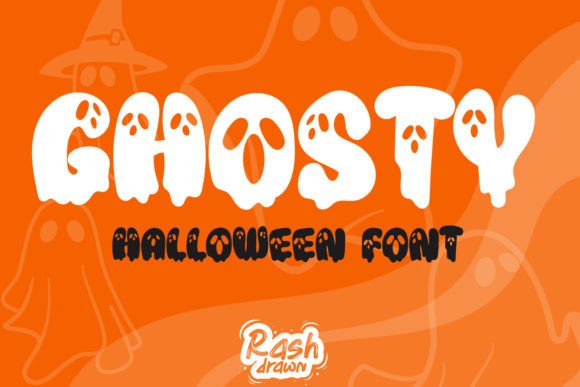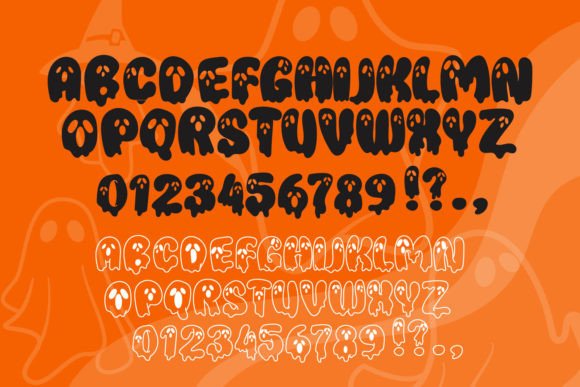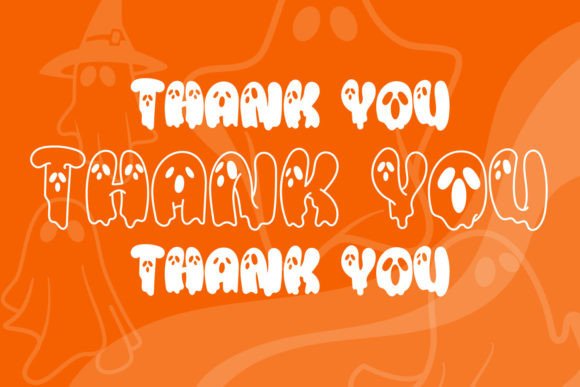
Ghosty Font
About the Ghosty Font
Meet Ghosty Font, a stunning font that brings a touch of elegance and professionalism to any design. Ghostly font is a fun and spooky typeface featuring letters shaped like friendly ghosts. Perfect for Halloween or adding a playful touch to your designs, it adds a whimsical and mysterious vibe to any project.
Ghosty Font’s playful design is ideal for headlines, short text blocks on posters or packaging, and branding elements where a whimsical, friendly touch is desired. It works exceptionally well for children’s products, Halloween-themed projects, or brands aiming for a quirky, approachable image. However, its unique letterforms are unsuitable for body text or extended reading, and its low x-height makes it less effective in user interfaces.
Pairing Ghosty Font with a clean sans-serif like Open Sans for body copy provides excellent contrast and readability. For a more sophisticated feel, consider pairing it with a classic serif typeface such as Garamond. A script font like Pacifico could add another layer of playful personality when used sparingly, accentuating the friendly, spooky vibe.
The font’s core personality is undeniably friendly and playful, conveying a sense of lighthearted mystery rather than genuine fear. Its whimsical nature makes it unsuitable for projects requiring seriousness or professionalism.